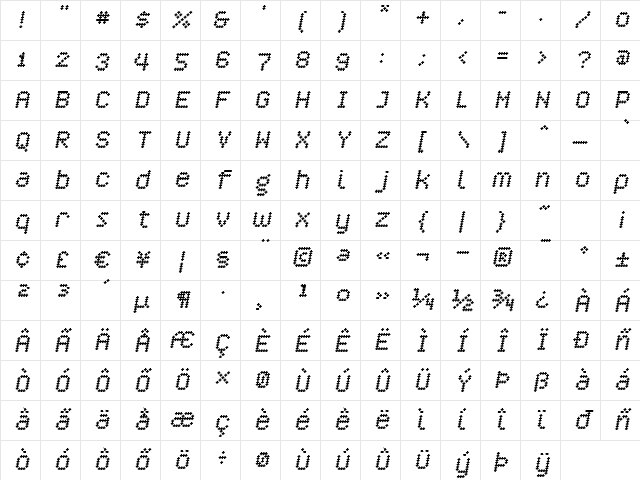
Crossover BoldOblique
Style: BoldOblique
Foundry: YouWorkForThem
Designer: Michael Cina
Design Context for Crossover
Crossover is a composed and adaptable typeface that performs quietly and consistently across a wide range of design contexts. The slanted form adds forward momentum and visual energy. Its bold stroke weight gives it real presence on the page.